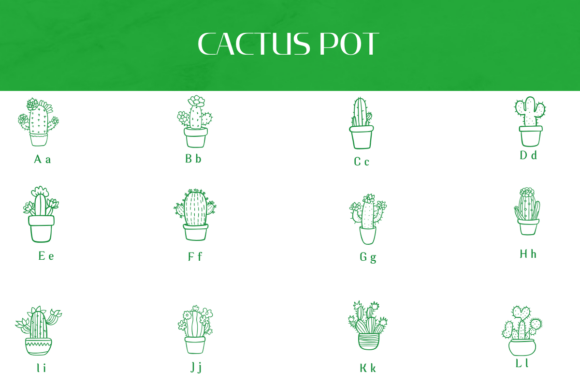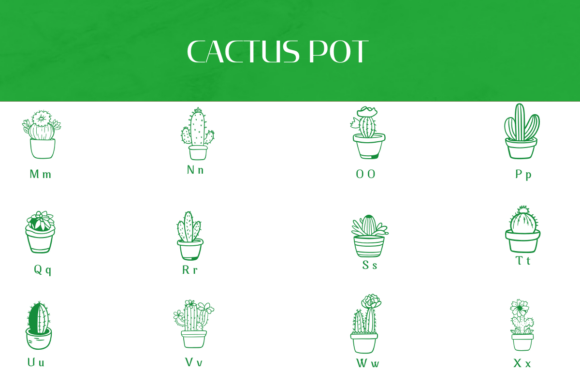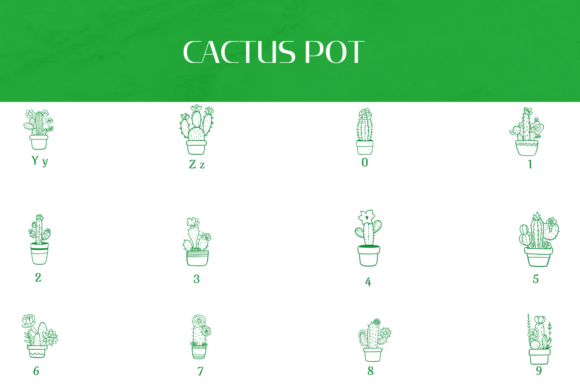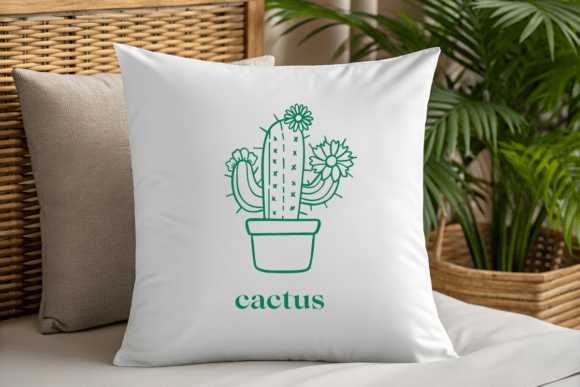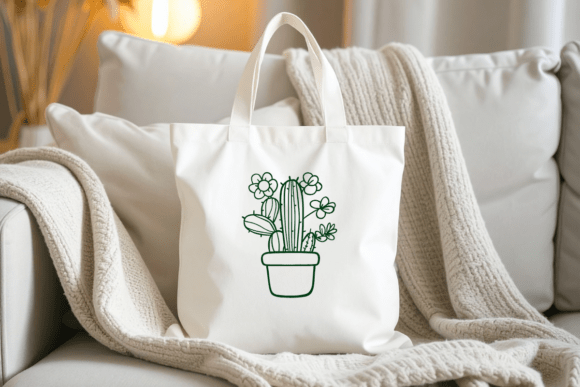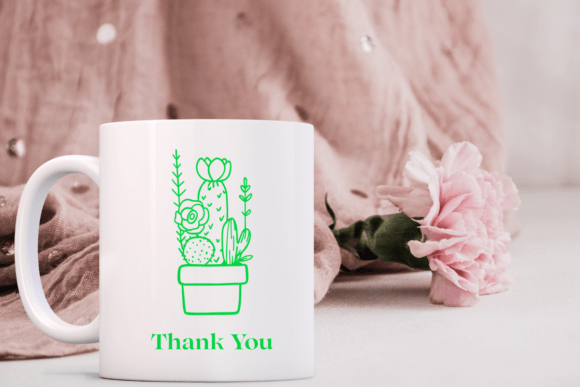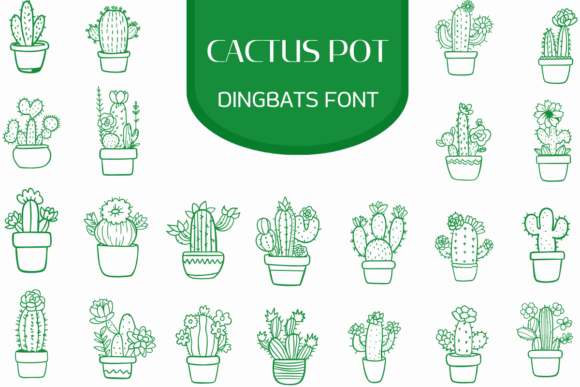
The Prickly yet Charming Cactus Pot Font: A Designer’s New Best Friend
I’ll never forget the time I was working on a project for a client who wanted a fun, whimsical design for their new product line. I had a clear vision in mind, but there was one problem: I just couldn’t find the right font to bring it all together. That’s when I stumbled upon the Cactus Pot font, and let me tell you, it was love at first sight! 😍
This cute dingbats font has been a game-changer for my design workflow, and I’m excited to share my experience with you. Whether you’re a designer, crafter, or creative hobbyist, you’ll love the unique personality and versatility that Cactus Pot brings to the table.
What I Love About Cactus Pot ✨
- ✅ Cute and quirky design: The Cactus Pot font is full of charming, hand-drawn elements that add a touch of whimsy to any design.
- ✅ Highly versatile: From craft projects to commercial designs, Cactus Pot can be used in a wide range of applications.
- ✅ Easy to read: Despite its playful nature, the font remains clear and legible, even at smaller sizes.
- ✅ OpenType features: Cactus Pot supports OpenType features, allowing you to access a range of glyphs and stylistic alternates.
- ⚠️ Limited character set: As a dingbats font, Cactus Pot doesn’t include a full range of characters, so you may need to pair it with another font for body text.
- ⚠️ May not be suitable for formal designs: The playful nature of Cactus Pot makes it better suited for informal or creative projects.
The Backstory Behind Cactus Pot
Cactus Pot was designed with the intention of bringing a touch of desert charm to the world of typography. The designer, inspired by the unique shapes and forms of cacti, created a font that would be both fun and functional. The result is a font that’s perfect for creative projects, from craft tutorials to commercial designs.
Q: What type of projects is Cactus Pot best suited for?
A: Cactus Pot is perfect for creative projects, such as craft tutorials, party decorations, and social media graphics.